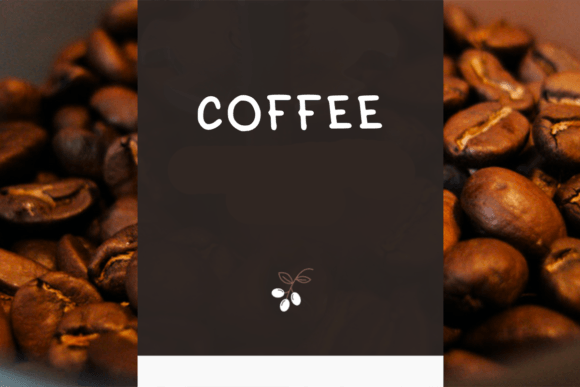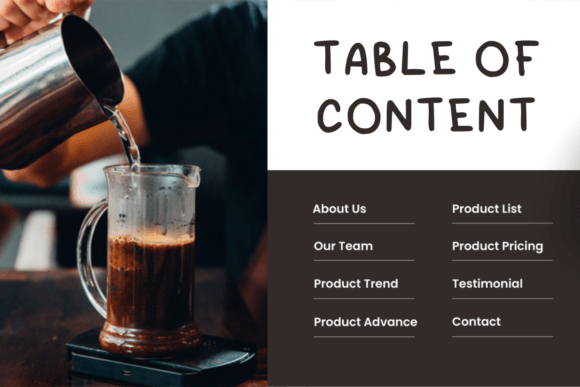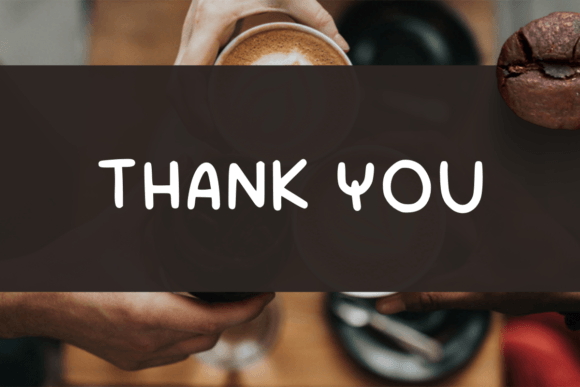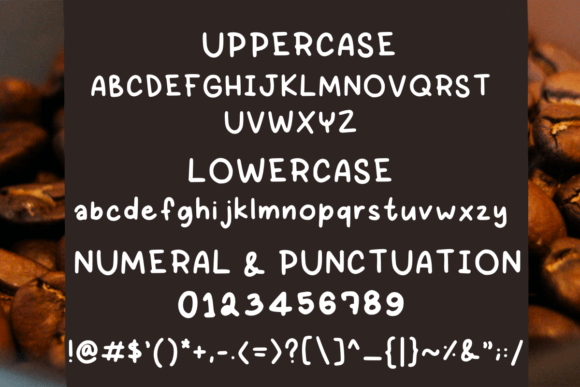
Coffee Font
The Coffee Font Download is a casual and neat handwritten script designed to bring charm and warmth to your creative projects. With its smooth strokes and natural flow, Coffee is an excellent choice for both personal and professional designs. Whether you’re crafting greeting cards, posters, or digital content, this font delivers a timeless handwritten touch.
A Neat and Stylish Typeface
The Coffee script font strikes a balance between simplicity and elegance. As a result, it feels approachable and versatile. Furthermore, its legibility makes it suitable for small stationery details as well as large, bold headlines.
Perfect for Crafts and Greeting Cards
The Coffee Font is especially ideal for invitations, birthday cards, thank-you notes, and seasonal greetings. Because of its friendly handwritten look, it adds a unique personal touch to every card or handmade project. In addition, it helps your stationery designs feel warm and memorable.
Branding and Logo Design with Coffee Font
Typography is central to brand identity. The Coffee handwritten font works wonderfully for boutique logos, creative packaging, and promotional branding. Its casual yet stylish personality communicates trust and creativity, making it perfect for lifestyle, craft, and small business designs.
Posters, Editorials, and Creative Displays
The Coffee Font Download also shines in posters, banners, magazines, and book covers. Its clean handwritten rhythm creates visual impact without sacrificing clarity. Consequently, it is an excellent choice for designers seeking both beauty and practicality.
Digital Media and Social Content
In today’s online creative world, fonts must adapt easily. The Coffee typeface integrates smoothly into Instagram posts, YouTube thumbnails, Pinterest graphics, and blogs. Because of its neat handwritten vibe, it enhances digital content with a friendly and professional appearance.
Why Designers Love Coffee Typeface
Designers appreciate fonts that offer a perfect blend of usability and charm. The Coffee handwritten script provides a timeless handwritten feel while remaining easy to read. Moreover, its natural flow ensures it works well across many different design projects.
Add Friendly Elegance to Your Work Today